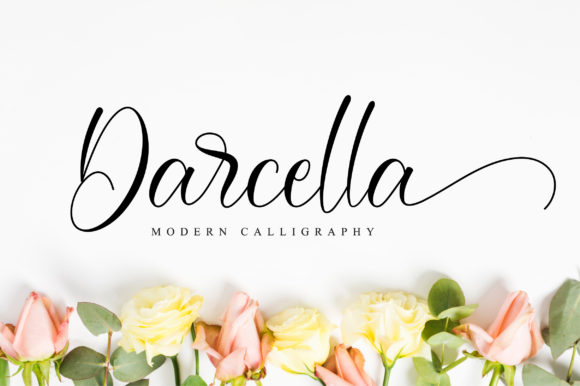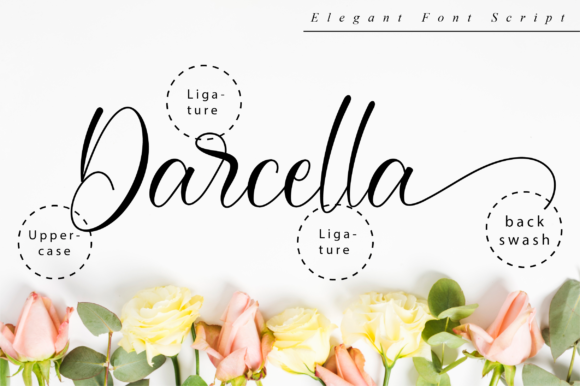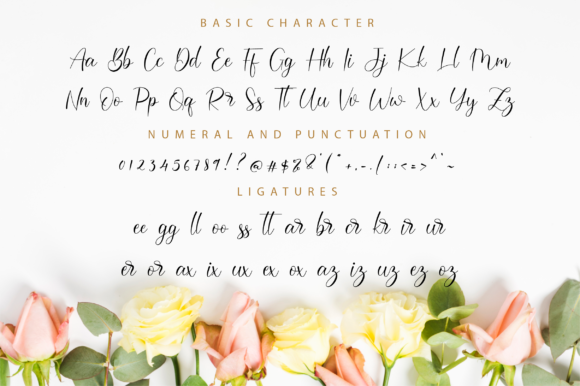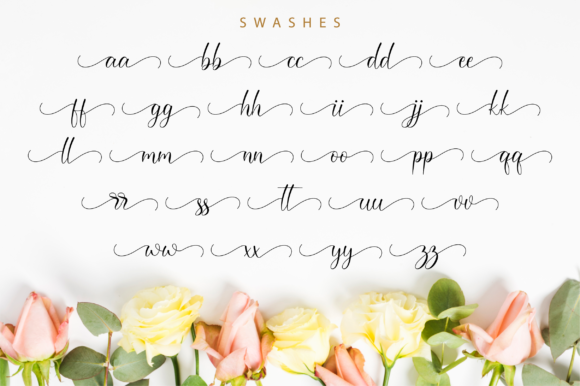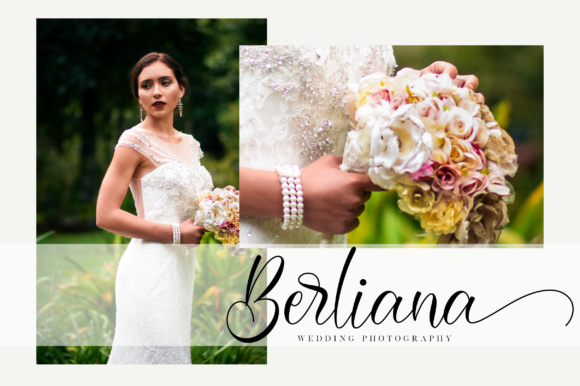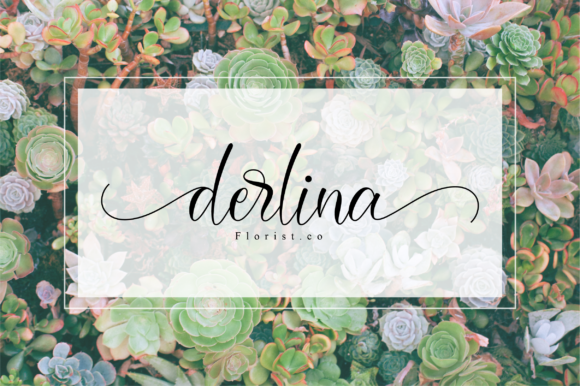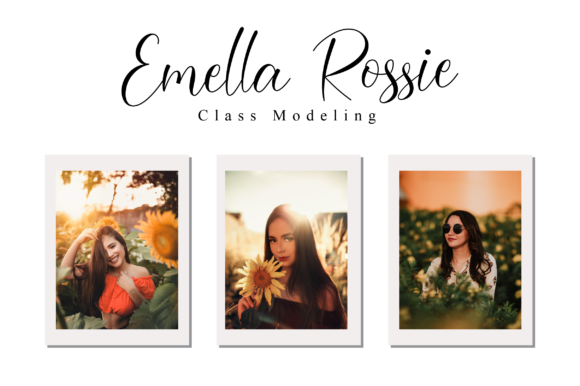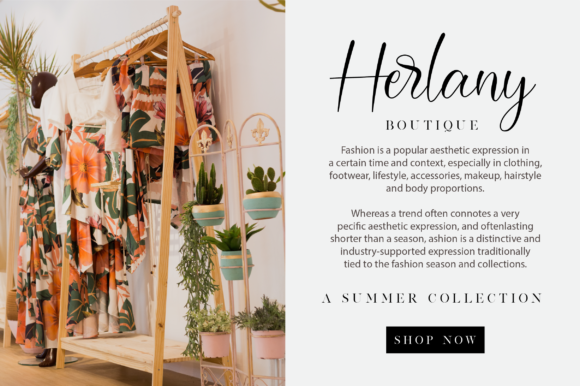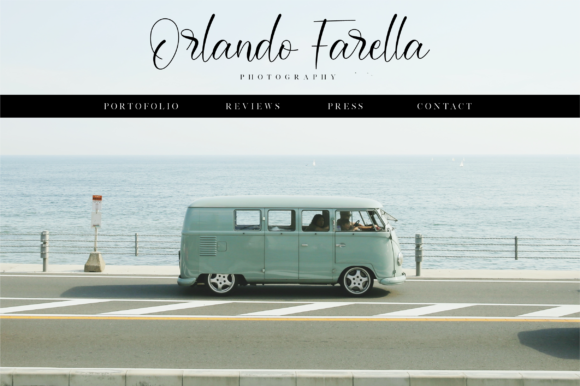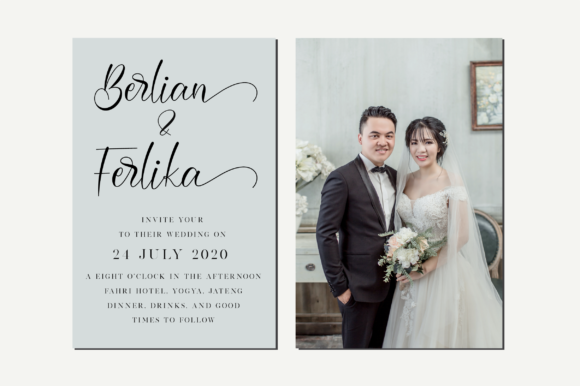
Darcella Font
About Darcella Font
Darcella is a magical handwritten font carefully created with a touch of elegance. It will elevate a wide range of design projects to the highest level, be it branding, headings, wedding designs, invitations, signatures, logos, labels, and much more!